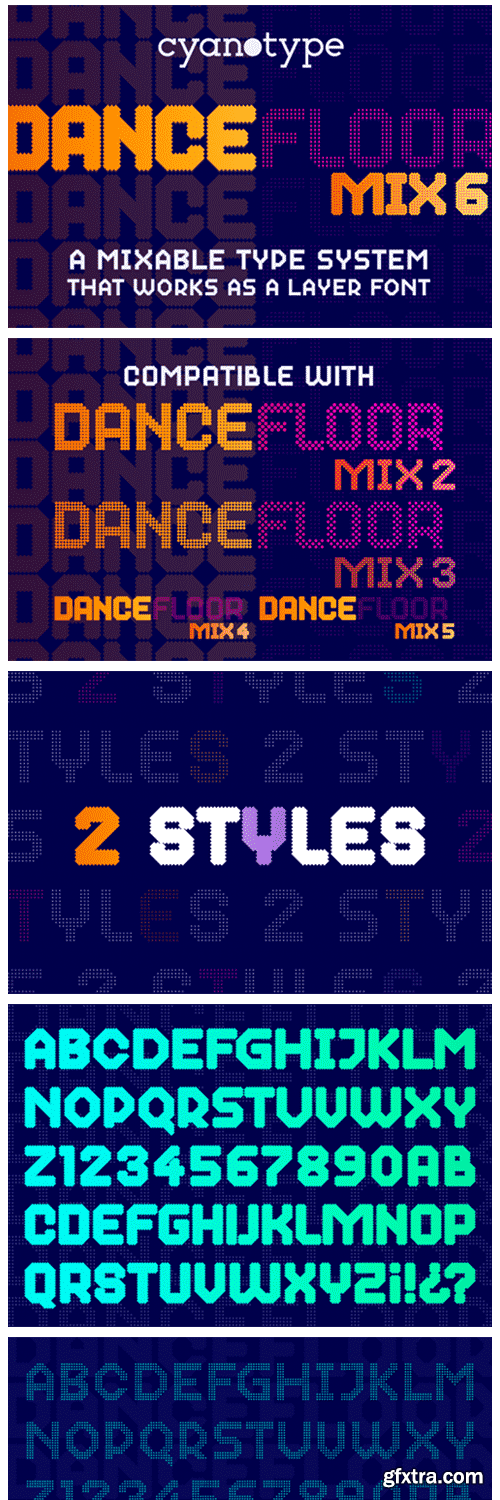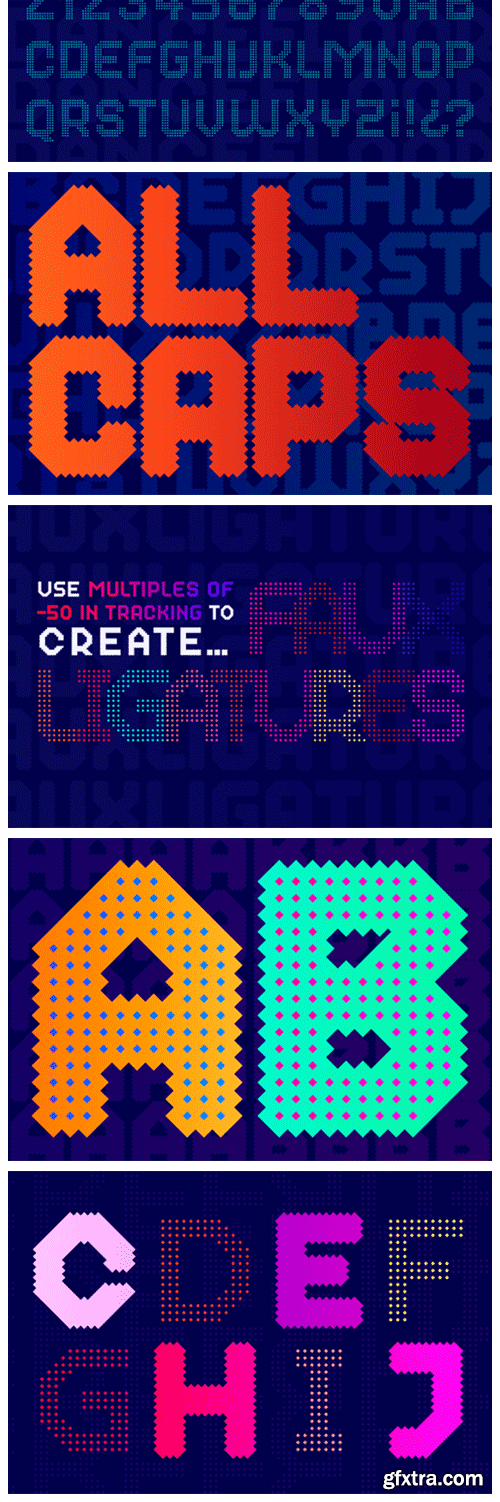
Dance Floor Mix 6 Font
Dance Floor Mix 6 is a fusion of display fonts, bitmap fonts, layer fonts and geometric pattern systems. These distinct styles are perfect to be mixed & matched, allowing you to create multiple versions. This mix contains 2 of 64 styles. Use them along with Mix 2, Mix 3, Mix 4 & Mix 5.